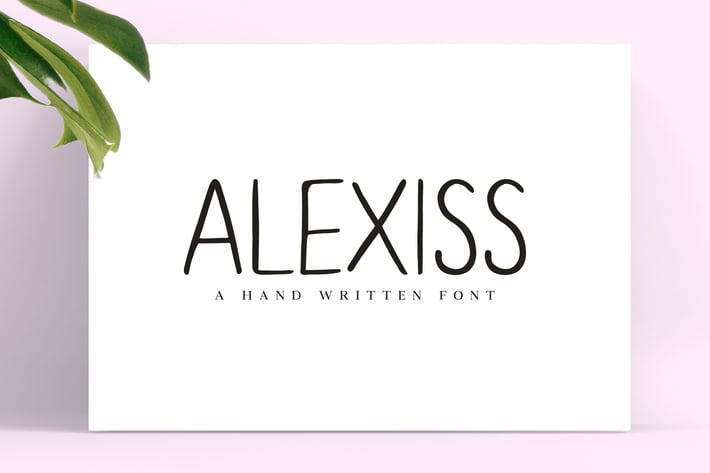
Alexiss Sans Serif Font
Alexiss is a modern, versatile, simply as a stylish sans serif font for your forthcoming projects. It contains complete basic glyphs with multilingual support. Alexiss will be perfect for packaging, presentations, logo, headlines, lettering, posters, branding, quotes, titles, magazines headings, web layouts, advertising, invitations, packaging design, books, and nearly any creative design.
Alexiss Font Features:
- Uppercase Letters
- Lowercase Letters
- Non English Characters ( Latin Supplement + Latin Extended A)
- ABCDEFGHIJKLMNOPQRSTUVWXYZ
- abcdefghijklmnopqrstuvwxyz
- 0123456789
- !"#$%&'()*+ô-./:;?@[\]^_`{|}~ ¥€
- ÀÁÂÃÄÅÈÉÊËÌÍÎÏÑÒÓÔÕÖÙÚÛÜàá
- âãäåèéêëìíîïñòóôõöùúûüÿỲ